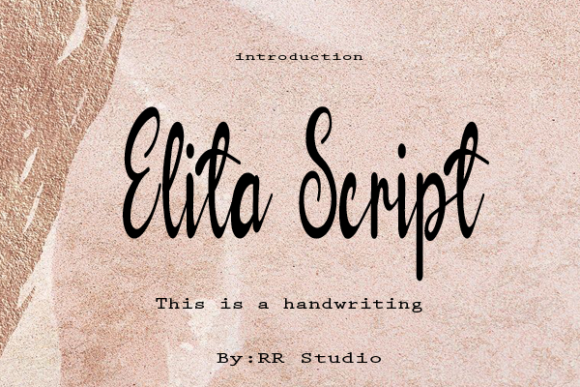
Prepare to be captivated by the allure of Elita Script, an extraordinary handwritten font that exudes elegance and sophistication. Its meticulously crafted characters dance across the page like a symphony of ink, leaving an unforgettable impression on your designs. Elita Script isn't just a font; it's an artistic journey that will elevate your creations to new heights.
Immerse yourself in the world of web design with Elita Script, recognized as one of the Best Fonts For Web Design 2015. Its timeless beauty and modern aesthetic make it the perfect choice for designers seeking a touch of individuality and charm. Watch as your websites and online creations come alive with Elita Script's captivating presence.
Envision your wedding invitations adorned with Elita Script's delicate strokes, the words of love and commitment dancing gracefully on the page. Picture thank-you cards that radiate sincerity and gratitude, their messages penned in the elegant curves of Elita Script. Quotes and greeting cards take on a new life, their words imbued with a heartfelt authenticity that resonates with readers.
Logos and business cards transformed into works of art, their names etched in Elita Script's distinctive style, exuding professionalism and creativity. Elevate your designs to the next level with Elita Script, the font that adds a touch of handwritten magic to every project.
Elita Script's versatility knows no bounds. Its enchanting presence graces invitations, cards, posters, flyers, brochures, and countless other creations. Let your imagination soar as you explore the endless possibilities of this captivating font.
Indulge in the beauty of Elita Script and witness your designs bloom with elegance and charm. Step into a world where words dance with grace and sophistication, where your creations captivate and inspire. Elita Script awaits you, ready to transform your designs into masterpieces.